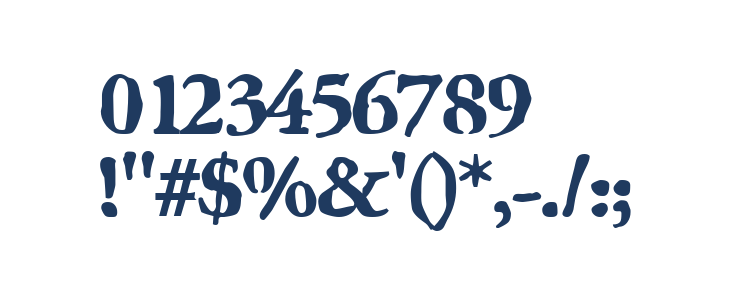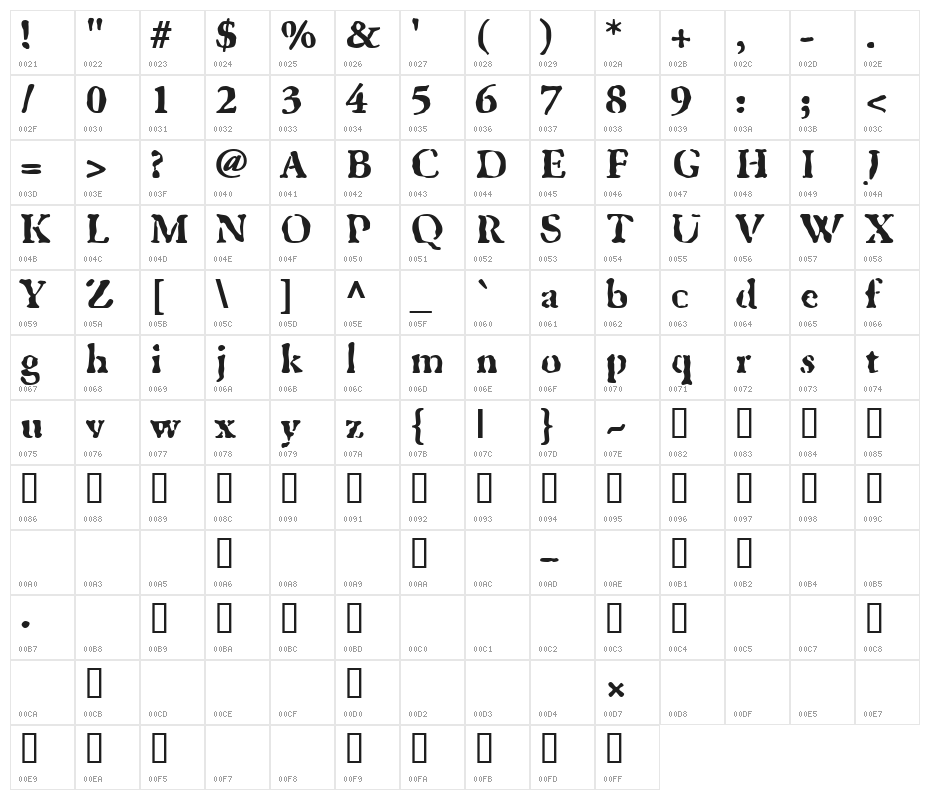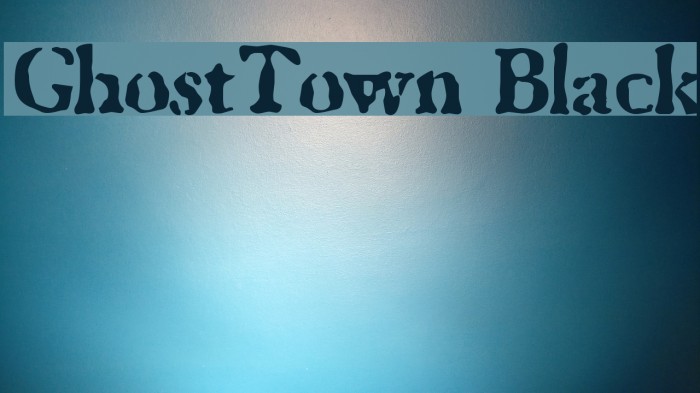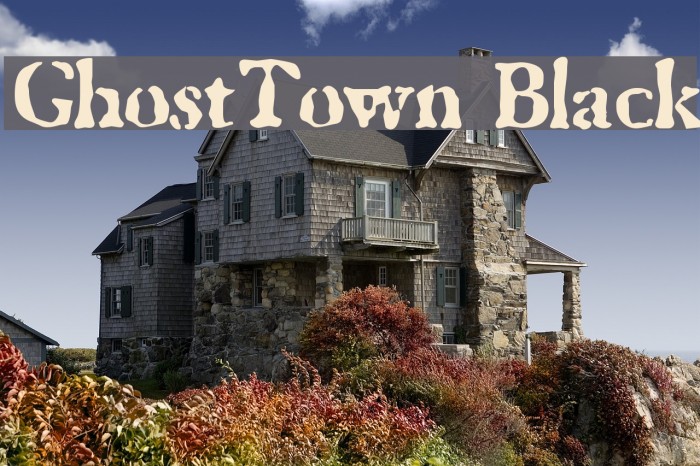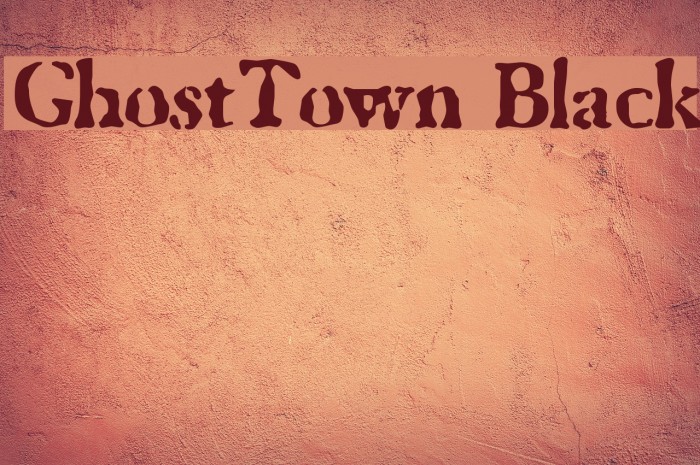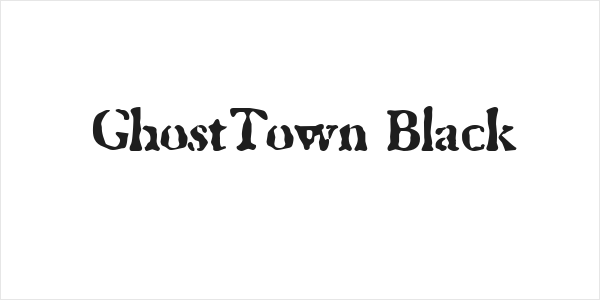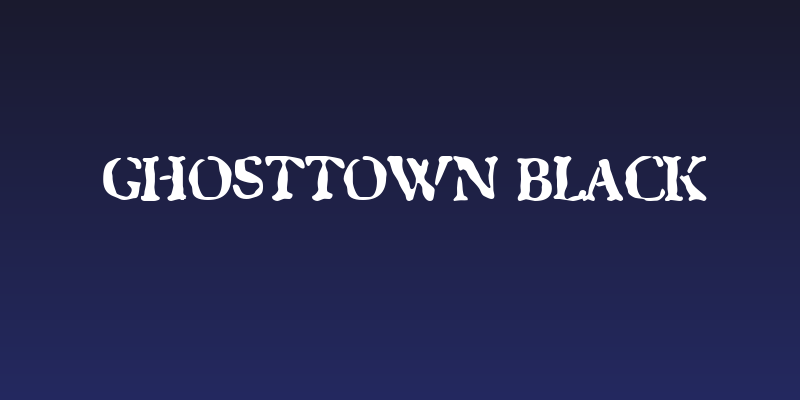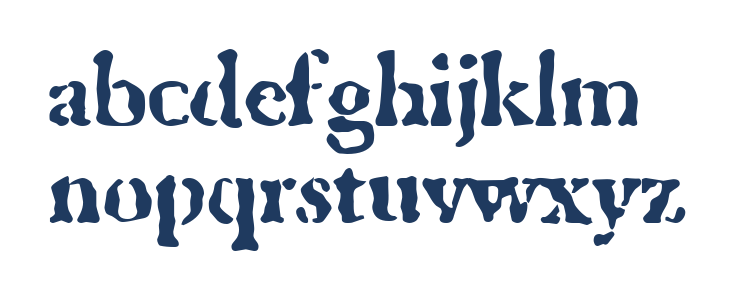
GhostTown Black Font
GhostTown Black Description
This font features a bold and rugged design, reminiscent of old western or vintage horror themes. The characters have a distressed, uneven texture that gives them a hand-crafted appearance, adding to the font's rustic charm. The uppercase and lowercase letters maintain a consistent style, with sharp edges and irregular strokes that create a sense of movement and energy. Numbers and special characters follow the same aesthetic, making the font versatile for various creative applications. The overall look is both dramatic and eye-catching, perfect for projects that require a strong visual impact.